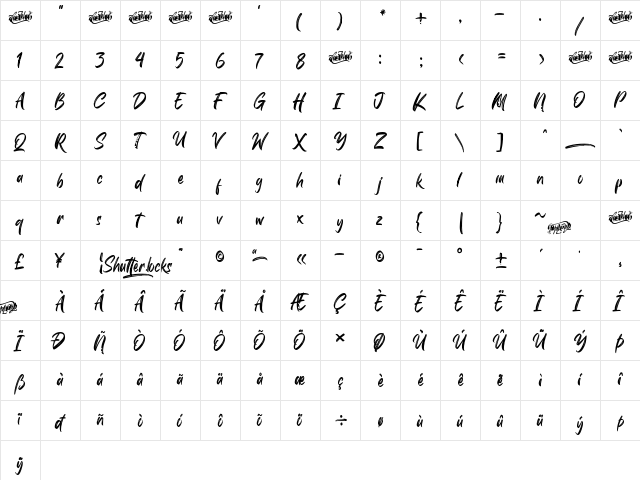
Shutterlocks Regular
| Foundry | Almarkhatype Studio 2020 |
| Designer | Almarkhatype Studio 2020 - Abdul Malik Wisnu |
Design Context for Shutterlocks Typeface
Shutterlocks is a composed and adaptable typeface that performs quietly and consistently across a wide range of design contexts.